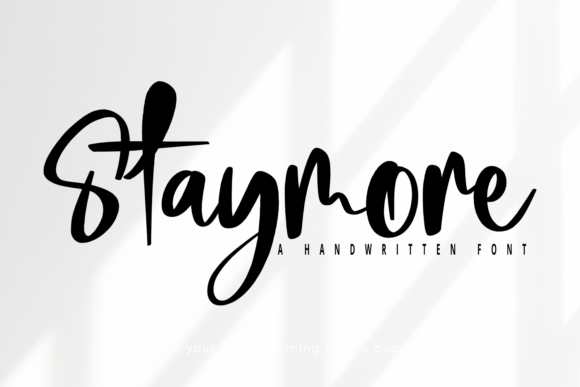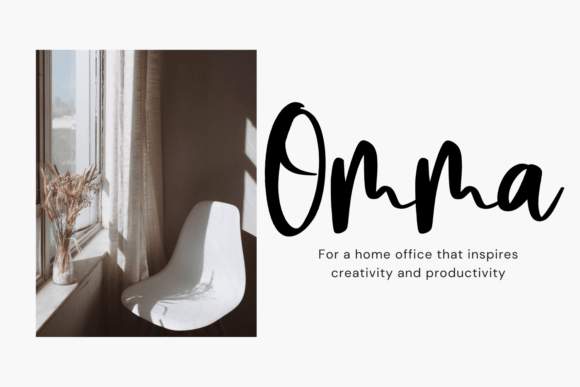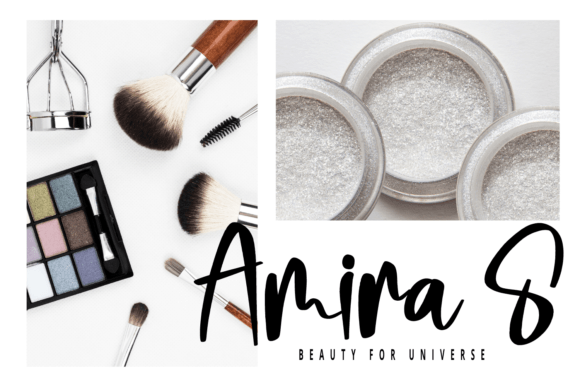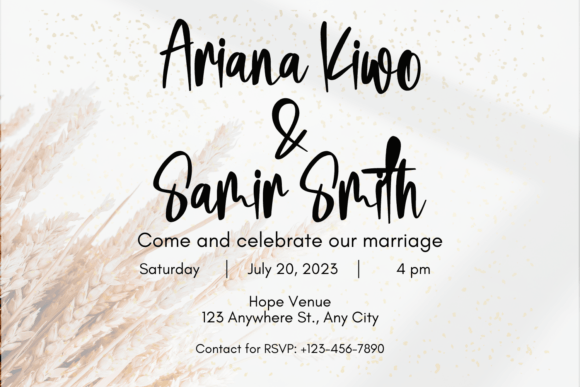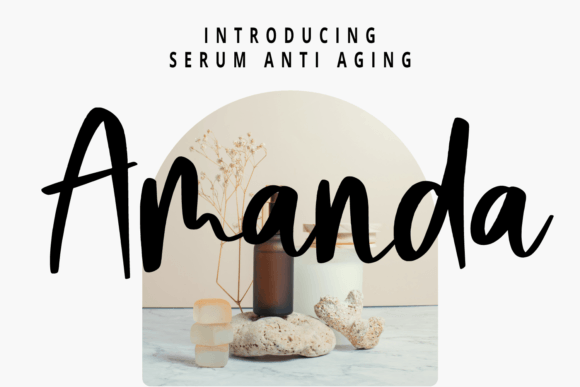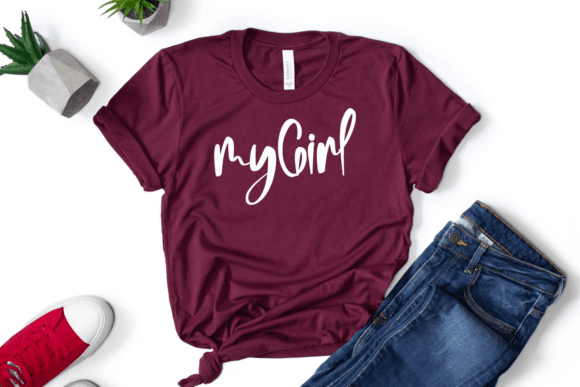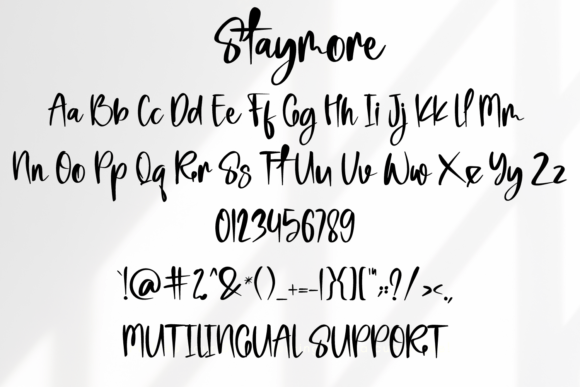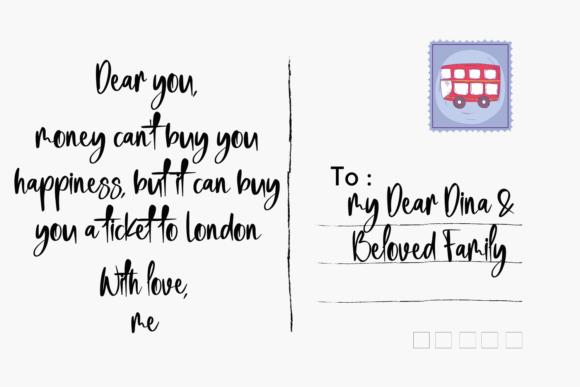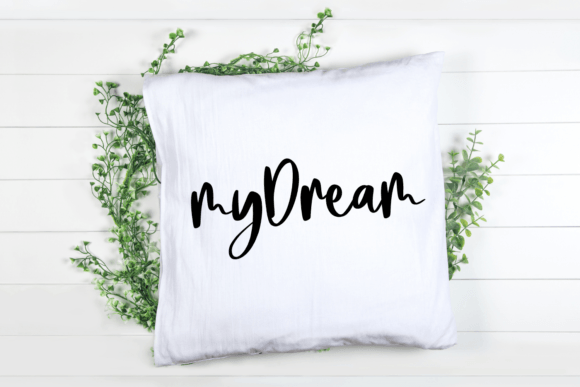
Staymore Font
About Staymore Font
**Introducing Staymore: Where Elegance Meets Distinction**
Meet **Staymore**, a font that effortlessly merges elegance and class, designed for individuals who seek a touch of beauty and rejuvenation in their designs. This exquisite script font captures the essence of sophistication, making it the ideal choice for a myriad of creative projects. Whether you’re working on wedding invitations, heartfelt thank-you cards, inspiring quotes, stylish logos, or professional business cards, **Staymore** brings a handwritten allure that elevates every design it graces.
**Timeless Elegance:**
**Staymore** emanates timeless elegance, creating a visual experience that is both refined and captivating. Its graceful curves and carefully crafted characters lend a sense of sophistication to any project, making it perfect for occasions and designs where a touch of class is essential.
**Distinctive Charm:**
What sets **Staymore** apart is its distinctive charm. Every letter is meticulously crafted to ensure a unique and refreshing look. The font’s fluid strokes and individuality make it stand out, leaving a lasting impression on anyone who encounters it. With **Staymore**, your designs are sure to command attention and admiration.
**Versatile Beauty:**
**Staymore** adapts seamlessly to a wide range of design concepts, making it a versatile choice for various projects. Whether you’re designing elegant wedding stationery, luxurious business collateral, or engaging social media posts, this font adds an air of sophistication, transforming ordinary designs into extraordinary masterpieces.
**Handwritten Grace:**
While **Staymore** exudes elegance, it also maintains an authentic handwritten quality. Its natural flow and genuine appeal create a sense of intimacy and warmth. This handwritten grace establishes a genuine connection with your audience, making your message more relatable and heartfelt.
**Elevate Your Designs with Staymore:**
If you’re searching for a font that combines elegance, distinctiveness, and versatility, look no further than **Staymore**. Let its graceful presence breathe life into your creative endeavors, enhancing each project with a touch of timeless beauty. Whether used in bold headlines or subtle accents, **Staymore** ensures that your designs exude sophistication and charm.
Embrace the allure of elegance and add a touch of distinctive charm to your creations with **Staymore**—where sophistication meets handwritten grace, creating designs that leave a lasting impression.